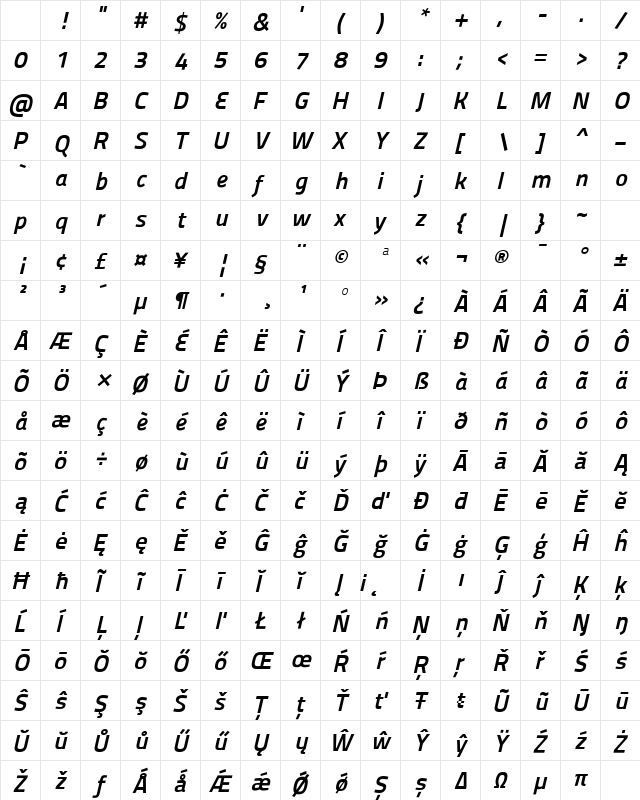
Complete Panefresco 800wt Italic glyph index. Displaying only characters natively supported by Panefresco 800wt Italic font.
Panefresco 800wt is a composed and adaptable typeface that performs quietly and consistently across a wide range of design contexts. The slanted form adds forward momentum and visual energy.
Pro Tip: Use Panefresco 800wt for emphasis, pull quotes, and subheadings where its slanted energy can add rhythm to the layout.